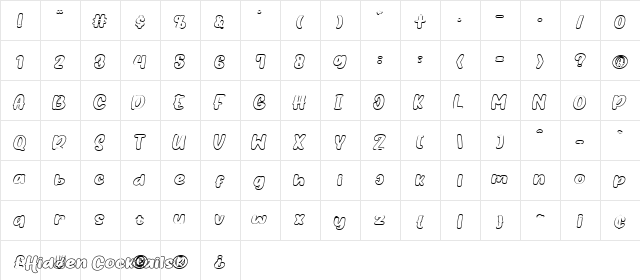
Complete Hidden Cocktails Italic Outline glyph index. Displaying only characters natively supported by Hidden Cocktails Italic Outline font.
Hidden Cocktails is built around its visual character rather than neutral utility - its distinctive forms are designed to make an impression at display sizes. The slanted form adds forward momentum and visual energy.
Font Pairing: Pair with a clean neutral sans-serif for body copy to let Hidden Cocktails's character lead without overwhelming the composition.
Pro Tip: Use Hidden Cocktails exclusively at display sizes - it was designed to be seen, not read at length. Let a neutral companion handle body copy.